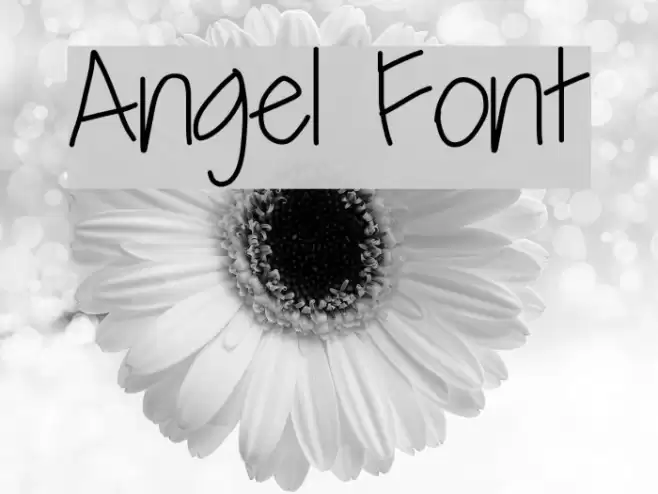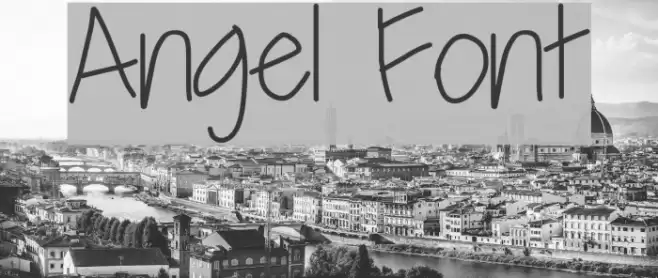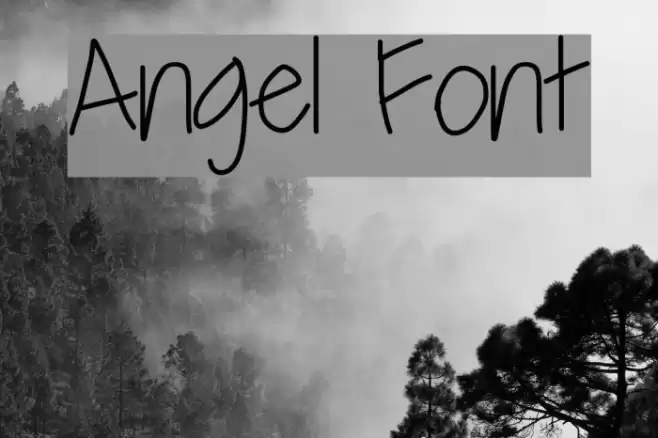
Angel Font
Angel Description
This font features a playful and casual handwritten style, characterized by its loose and informal strokes. The letters have a consistent flow, with rounded edges and a slightly uneven baseline that adds to its charm. The uppercase and lowercase letters maintain a cohesive look, while the numerals and special characters complement the overall aesthetic. The font's whimsical nature makes it suitable for projects that require a personal touch or a relaxed vibe.
- Proposed Projects: Ideal for greeting cards, children's books, casual branding, and social media graphics.
- Overall Style: Casual, Playful
- Use Case: Logos, Headlines, Informal Invitations